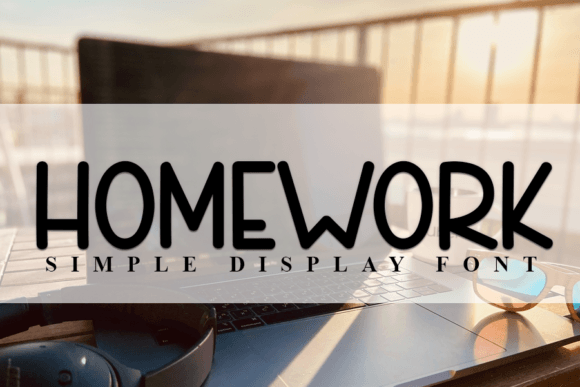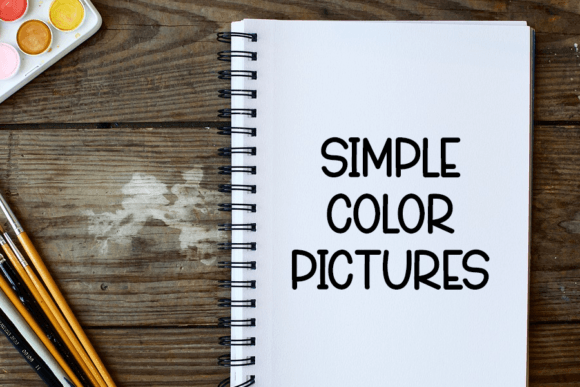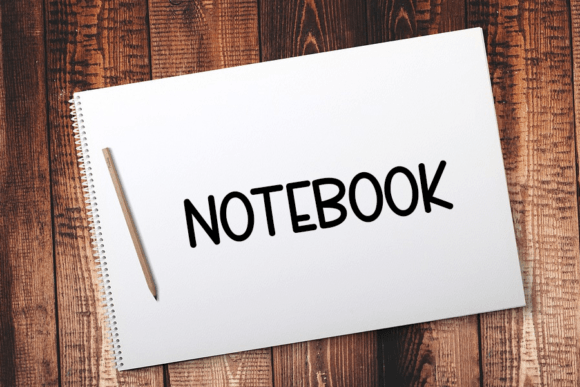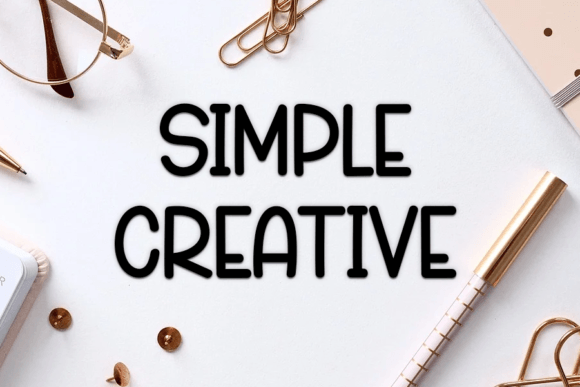
About the Homework Font Font
Introducing the Homework Font Font, a beautifully crafted typeface designed to elevate your creative projects. Digital Paper is a cool and modern handwritten display font. Whether you’re using it for crafts, digital design, presentations, or making greeting cards, this font has the potential to become your favorite go-to font, no matter the occasion!
Homework Font works exceptionally well for headlines, short titles, and branding elements where a casual, approachable feel is desired. Its handwritten style lends itself perfectly to projects targeting younger demographics or those emphasizing creativity and playfulness. Avoid using it for body text or long paragraphs; its informal nature makes extended reading difficult.
Consider pairing Homework Font with a clean sans-serif like Open Sans for a balanced contrast, or a more geometric sans-serif like Montserrat for a modern edge. For a touch of elegance, a delicate serif like Lora could complement its handwritten charm. Avoid pairings with overly ornate scripts, which might clash with its informal personality.
Homework Font projects a friendly, approachable, and slightly quirky personality. It’s ideal for projects related to education, children’s products, crafts, or brands promoting a sense of handmade quality and youthful energy.